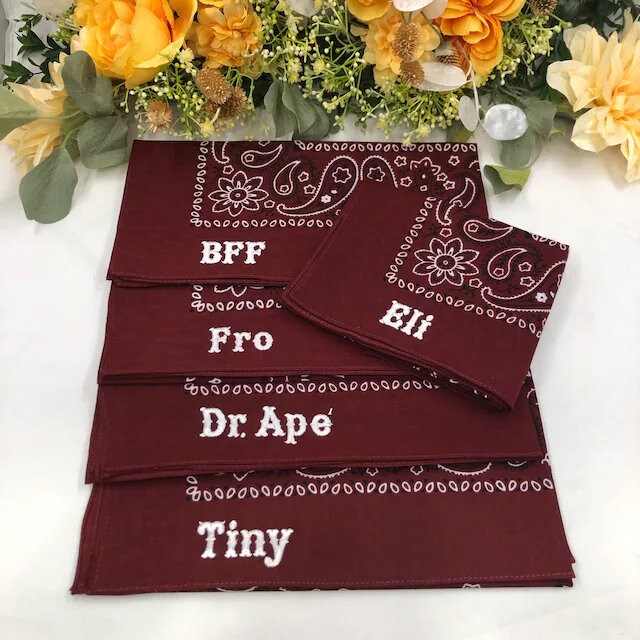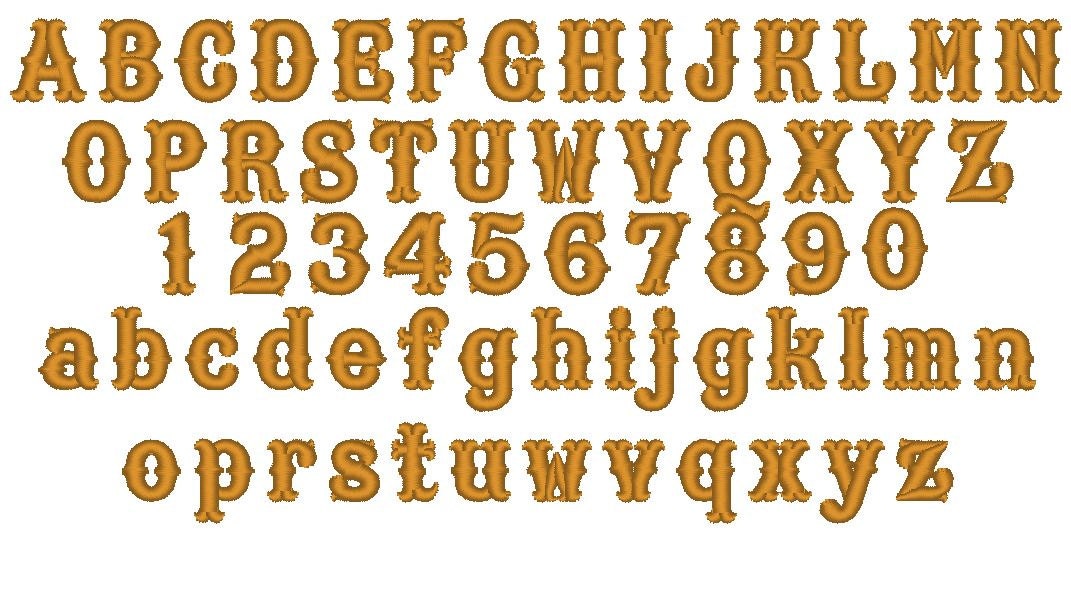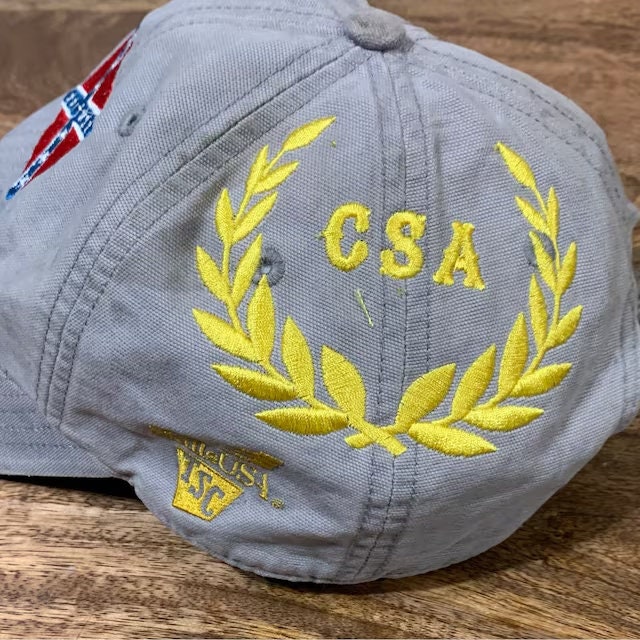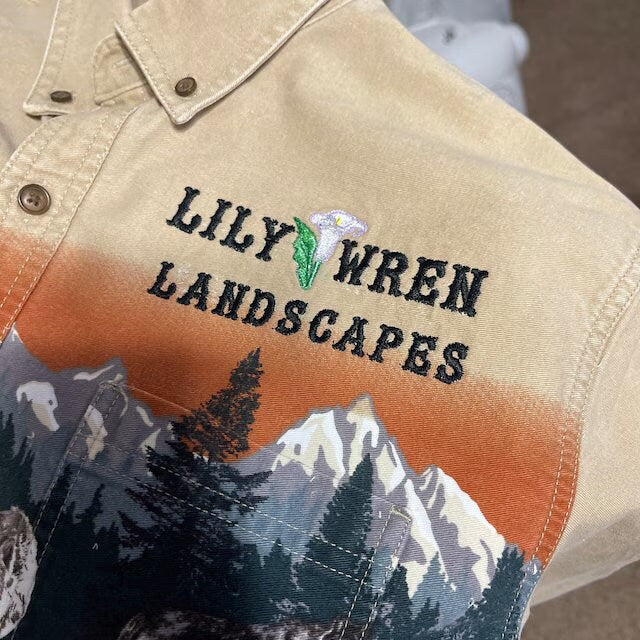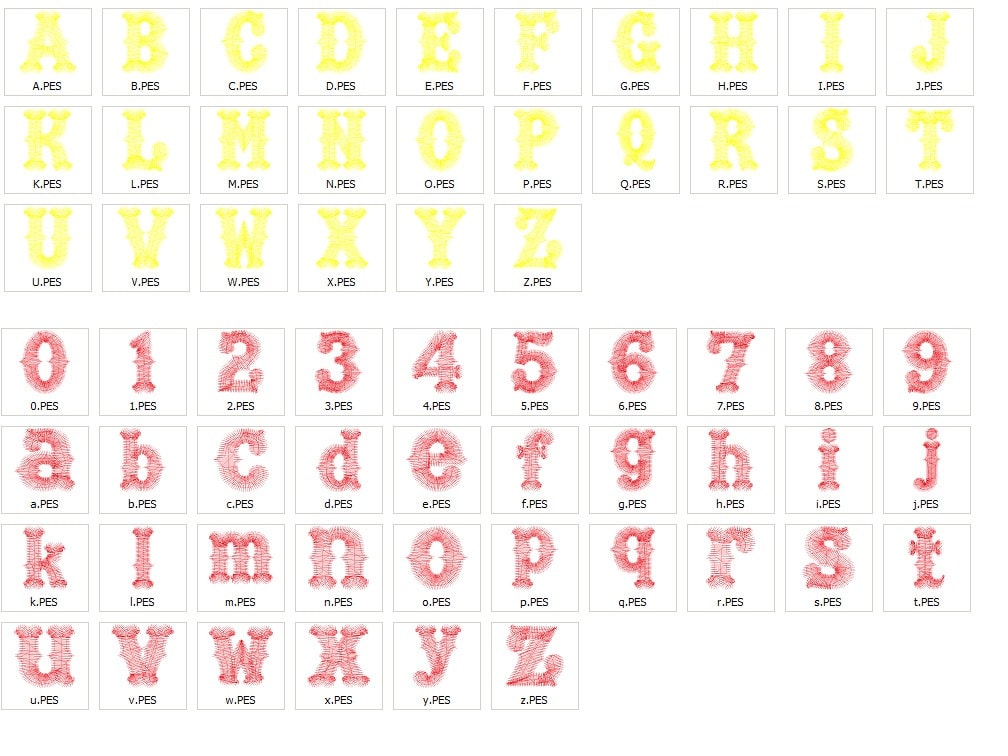
The embroidery nicely stitched out
This western font worked out great for my project I had to do. Digitizing was great too.
Stitched out great. highly recommend
Love this font, used on caps embroidered beautifully. Thank you.
Stitched out great on my brother nq3600
Stitches perfectly. Smooth and clean stitches
Love this font! Stitched out great!
These are adorable for my little boys western themed items. Sews out very well !
This font worked out perfectly. While it is wider than I had wanted, I am able to manipulate it to my desired letter width for my applications.
Adorable font perfect for my project!
Stitched out just like the pictures.
Sewed out perfectly the first time. Was not able to use the Embrillance Express due to the layout of the text, but I placed the individual letters and it looks great! Thanks!
Stitched out perfectly! Very cute
The font is great stitched out nice
it sewed out great! Beautiful font
Stitched out perfectly and completed the western look I was going for!
good clear fonts. I just needed them to be a little smaller
This font stitched beautifully! It is a no-no in the embroidery world to tweak the size of fonts. But, I resized the letters just a bit to fit a logo for a customer and it stitched perfectly! Totally pleased with the quality of this font.
This font stitched out beautifully!
Perfect for what I needed. Stitched out perfectly after slight resize.
love this font....works out great!
Stitches well! Super cute for all the cowboy themed stuff I have been doing lately.
I used the 1" numbers for the back of baseball caps. stitched out great.
Love this font, quality design with great results
Great font; sews good, thank you!
Sewed out flawlessly!
Looked great on our Ranch Rodeo team shirts!
This font stitched out perfectly. I used it to add my grandson's name to the Cowboy Personalized Custom Letter design, similar to what's shown in the photo for the custom letter design. Outstanding. Everyone loved it! Thought I was so clever!
Nice alphabet and stitches great!
Love it, stitched out perfectly!